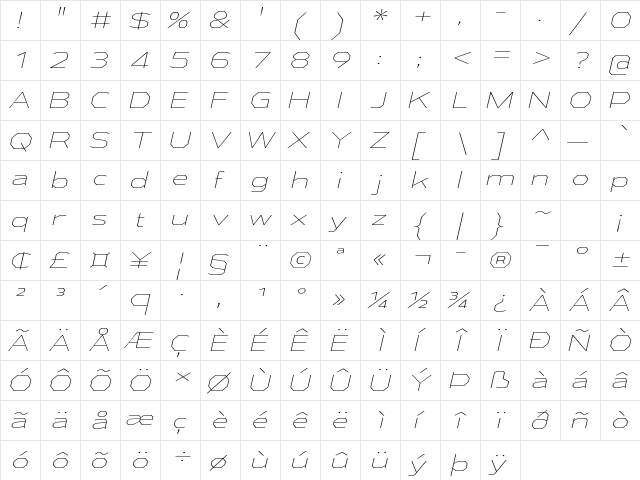
Athabasca Expanded ExtraLight Italic
Design Context for Athabasca Typeface
Athabasca offers clean, dependable letterforms without strong stylistic allegiance, making it a practical choice for designers who need flexibility. Its italic angle brings a sense of urgency and motion to the letterforms. Its slender proportions lend an understated elegance to any composition.